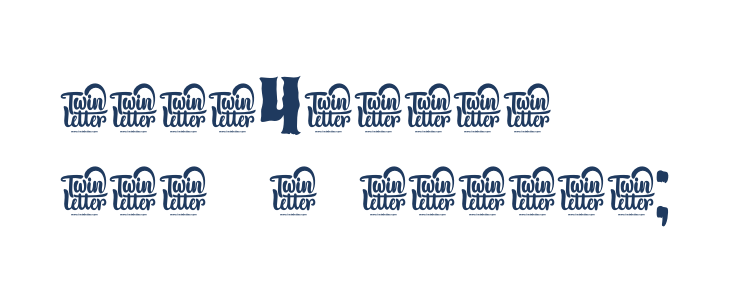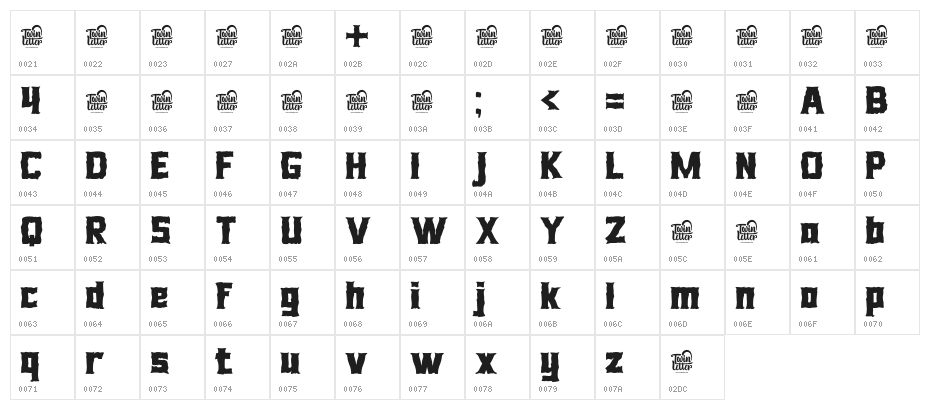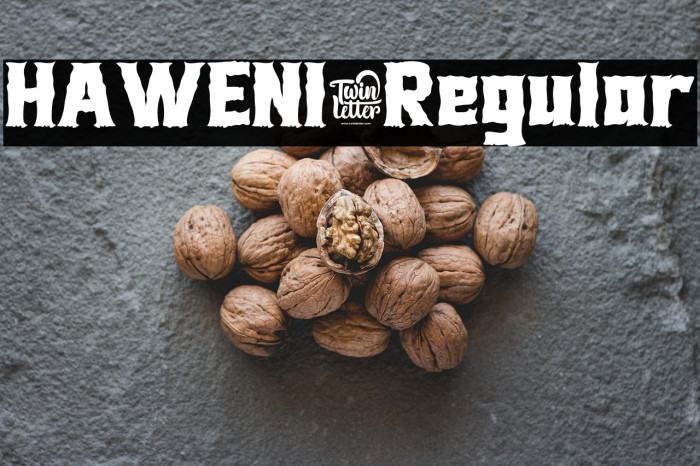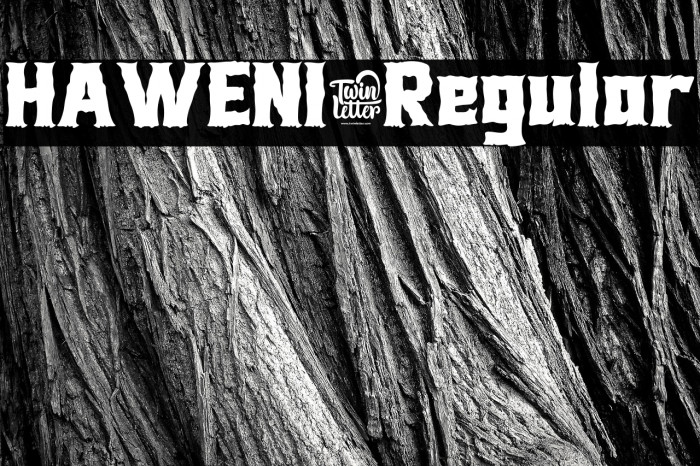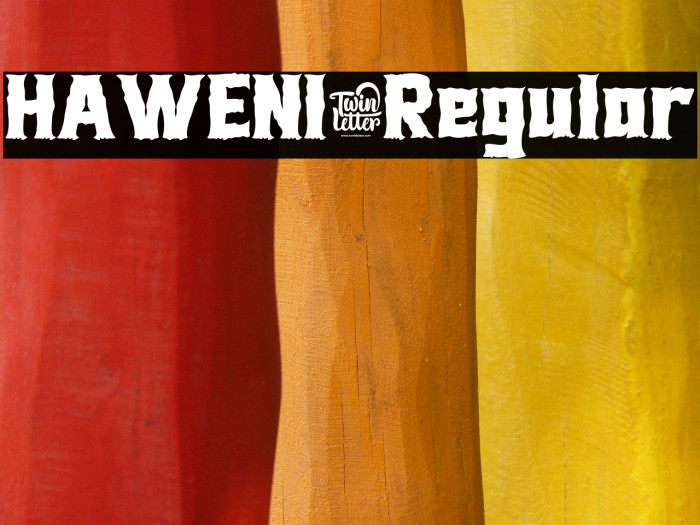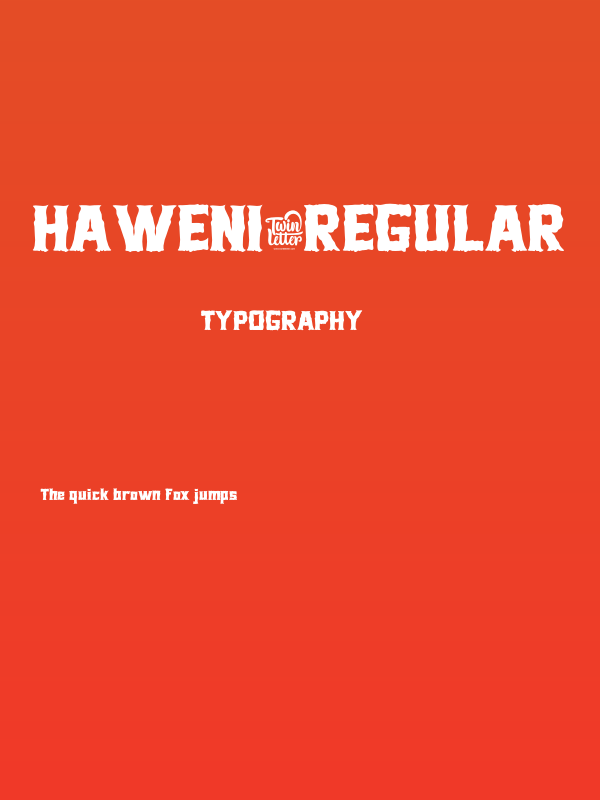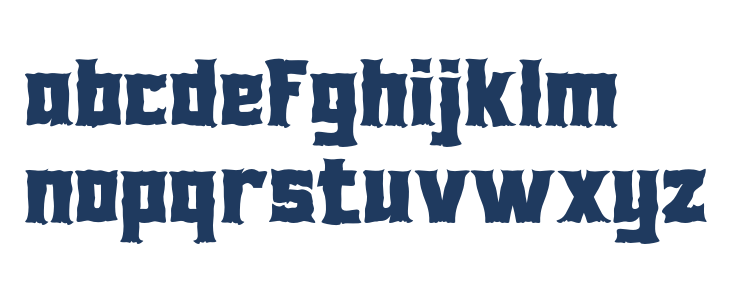
HAWENI-Regular Font
HAWENI-Regular Description
This font features a bold and rugged design with a distressed, textured appearance. The characters have an irregular, hand-drawn quality that gives them a unique, organic feel. The uppercase and lowercase letters maintain a consistent style, with thick strokes and uneven edges that add to the font's rustic charm. The numbers and special characters follow the same aesthetic, ensuring a cohesive look across all text elements. This font is ideal for projects that require a strong, impactful visual presence.